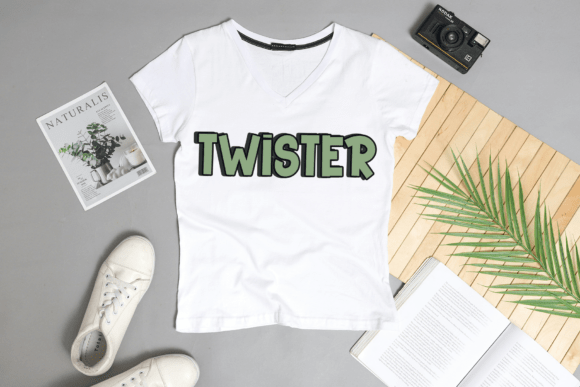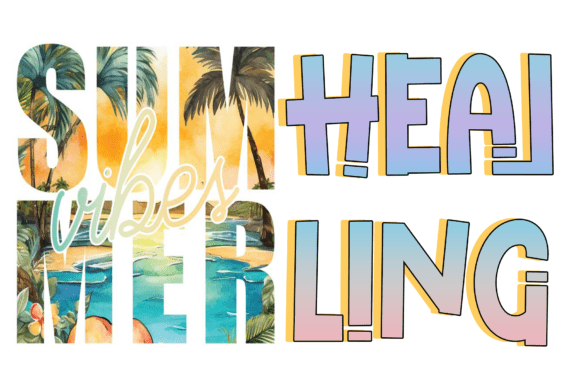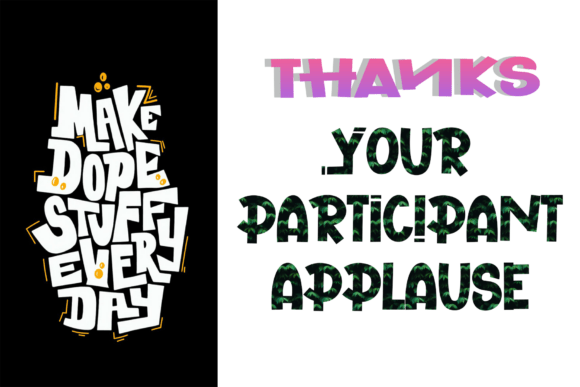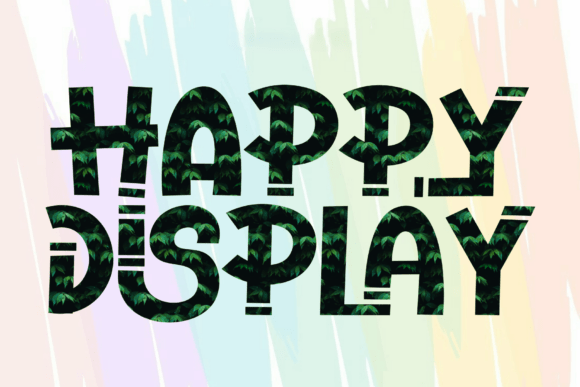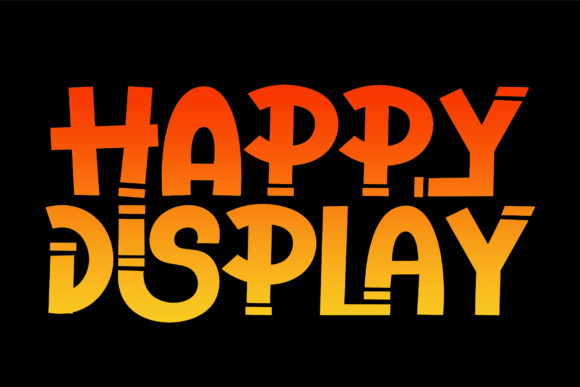
Introducing Happy Display Font: The Ultimate Choice for Cheerful Designs
Are you tired of using the same old fonts for your designs? Do you want to add a burst of energy and joy to your projects? Look no further than Happy Display Font, a bold, fun, and vibrant display font that’s perfect for designers and crafters who want to make a statement.
What Makes Happy Display Font So Special?
Happy Display Font is a unique and playful font that’s bursting with cheerful personality. Its chunky letterforms, playful curves, and quirky geometric cuts make it ideal for a wide range of design projects, from children’s books and game titles to party posters and colorful branding.
One of the standout features of Happy Display Font is its gradient styling, which enhances its lively feel and makes it perfect for designs that want to stand out with joy and energy. Whether you’re creating a fun and playful design for kids or a bold and eye-catching design for adults, Happy Display Font is the perfect choice.
As a designer or crafter, you know how important it is to choose the right font for your project. You want a font that’s not only visually appealing but also easy to read and versatile enough to use in a variety of contexts. Happy Display Font ticks all these boxes and more.
With its bold and chunky letterforms, Happy Display Font is perfect for creating eye-catching headlines and titles that grab attention. Its playful curves and quirky geometric cuts add a touch of whimsy and fun, making it ideal for designs that need to convey a sense of joy and energy.
Use Happy Display Font for a Wide Range of Projects
Happy Display Font is a versatile font that can be used for a wide range of projects, including:
- Children’s books: Happy Display Font is perfect for creating fun and engaging titles and headings for children’s books.
- Game titles: Add a touch of excitement and energy to your game titles with Happy Display Font.
- Party posters: Create eye-catching party posters that grab attention with Happy Display Font.
- Colorful branding: Use Happy Display Font to create bold and eye-catching branding that reflects your brand’s personality.
Why Choose Happy Display Font?
So why choose Happy Display Font over other fonts? Here are just a few reasons:
- Unique and playful design: Happy Display Font has a unique and playful design that’s sure to grab attention.
- Versatile: Happy Display Font can be used for a wide range of projects, from children’s books to game titles and party posters.
- Easy to read: Despite its bold and chunky design, Happy Display Font is easy to read and understand.
- Gradient styling: The gradient styling of Happy Display Font adds an extra layer of depth and visual interest to your designs.
Tips for Using Happy Display Font
Here are a few tips for using Happy Display Font in your designs:
- Use it sparingly: Happy Display Font is a bold and attention-grabbing font, so use it sparingly to avoid overwhelming your design.
- Pair it with a simple font: Pair Happy Display Font with a simple font to create visual interest and contrast.
- Experiment with colors: Happy Display Font looks great in a variety of colors, so experiment with different color combinations to find the one that works best for your design.
In conclusion, Happy Display Font is a bold, fun, and vibrant display font that’s perfect for designers and crafters who want to add a burst of energy and joy to their designs. Its unique and playful design, versatility, and ease of use make it an ideal choice for a wide range of projects. So why not give Happy Display Font a try and see how it can elevate your designs to the next level?